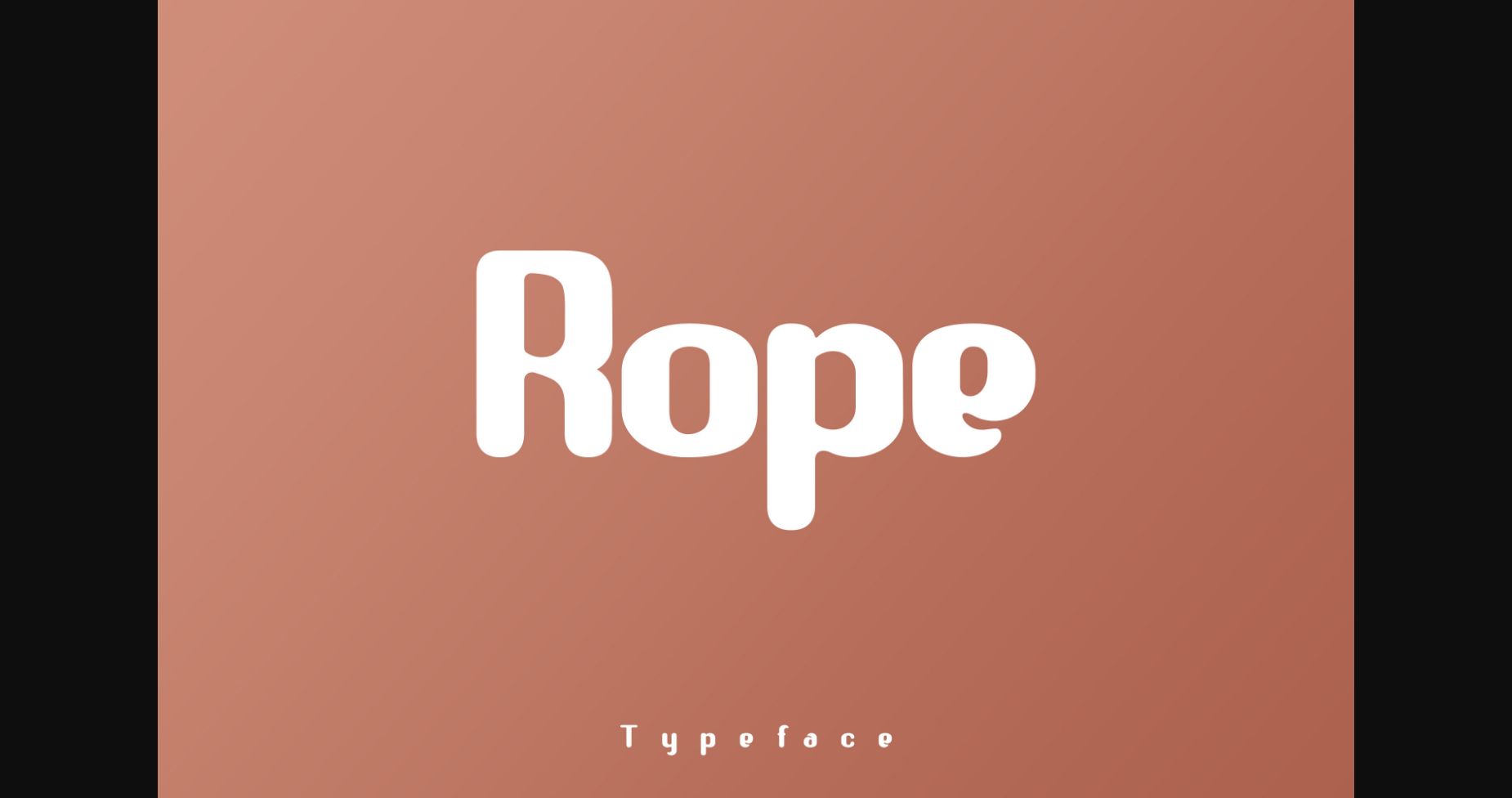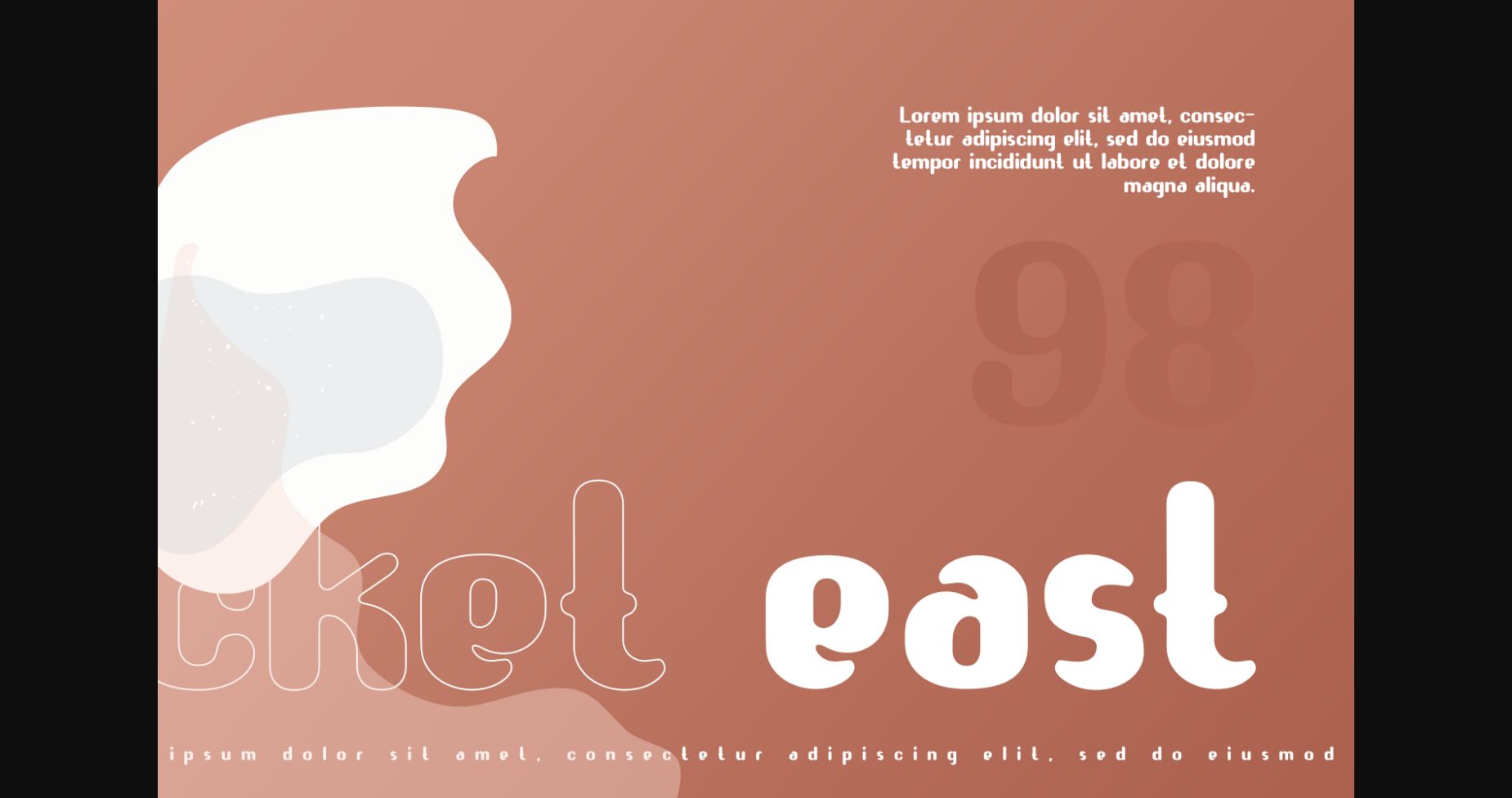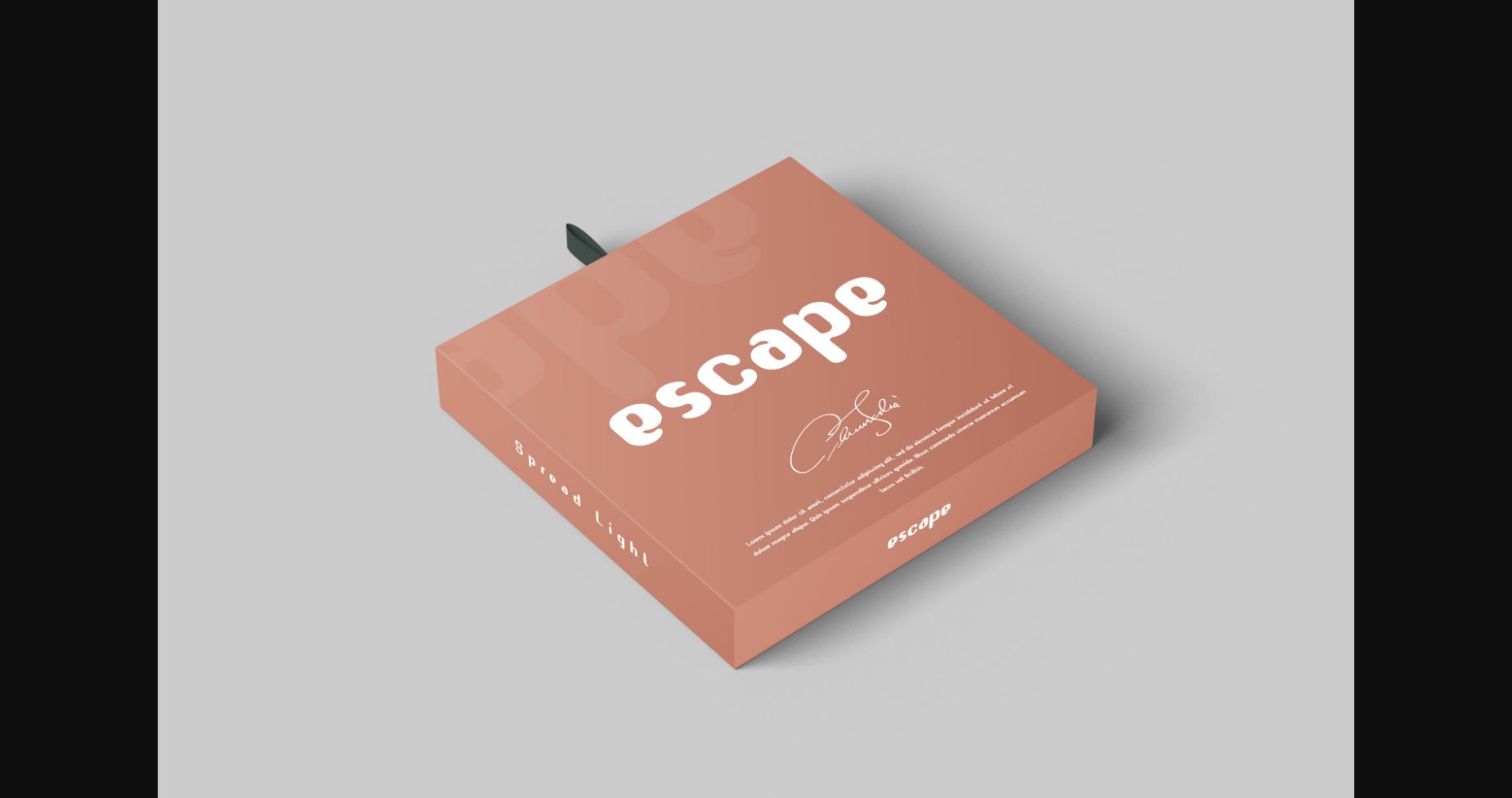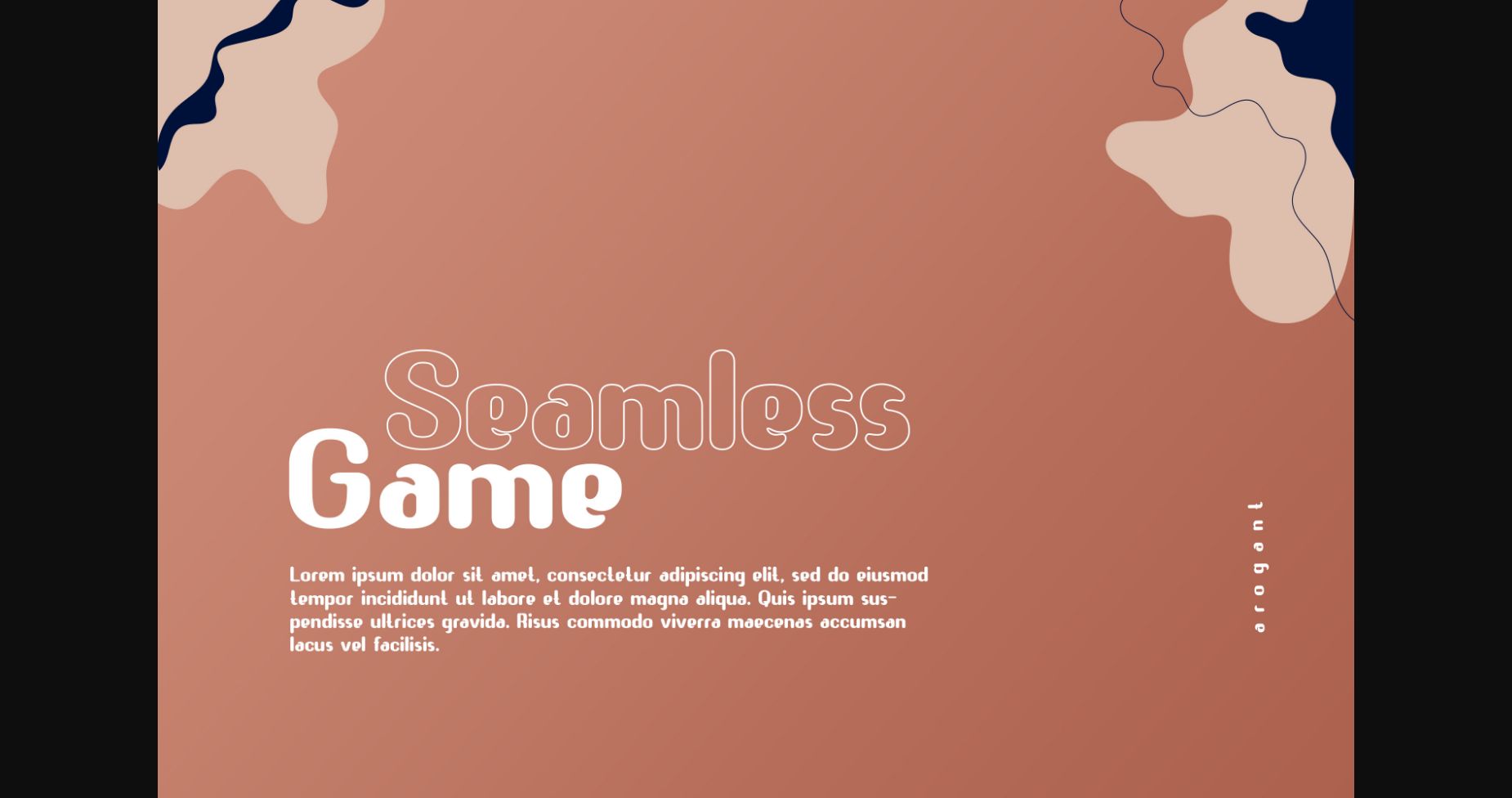
HomeSans Serif FontsRope Font Sans Serif Fonts Rope Font FacebookXPinterestWhatsApp 1 of 6 ... Rope Font Poster 2... Rope Font Poster 3... Rope Font Poster 4... Rope Font Poster 5... Rope Font Poster 6... About Rope Font Rope is a minimal and neat sans serif font. It can easily be matched to an incredibly large set of projects, so add it to your creative ideas and notice how it makes them stand out! DOWNLOAD NOW People also explored Shayla Font Revalina Font Banana Leaf Font Twisty Girlz Besyde Font Groovy Font Fathir Font Pottoray Font Zebra Split Font 257 0 TagsRopeRope Font Previous articleMillard FontNext articleOrine Font LEAVE A REPLY Cancel reply Comment: Please enter your comment! Name:* Please enter your name here Email:* You have entered an incorrect email address! Please enter your email address here Website: Save my name, email, and website in this browser for the next time I comment. Personal Use Free Lixdu Personal Use Free Read more about this font Lynoselt Personal Use Free Read more about this font Vincent Familiante Personal Use Free Read more about this font Millea Personal Use Free Read more about this font BLOG Free vs Paid Fonts: Why Investing in Premium Fonts Is Worth It Free vs Paid Fonts: Why Premium Fonts Are Worth It in 2025 The debate of free vs paid fonts continues in the design world. While... To increase your work productivity, choose the most readable fonts. Best Fonts for T-Shirt Design – Top 2025 Picks How to Cut Any Font on Cricut: Convert a Font to SVG (Free)